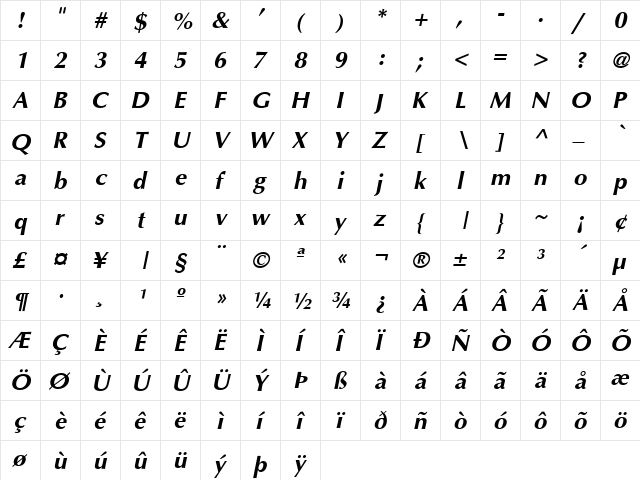
Ottawa Bold Italic
Design Context for Ottawa Typeface
Ottawa offers clean, dependable letterforms without strong stylistic allegiance, making it a practical choice for designers who need flexibility. The slanted form adds forward momentum and visual energy. Its bold stroke weight gives it real presence on the page.
Pro Tip: Try Ottawa for annotation and caption copy alongside an upright companion — the contrast in angle creates a dynamic but ordered typographic system.